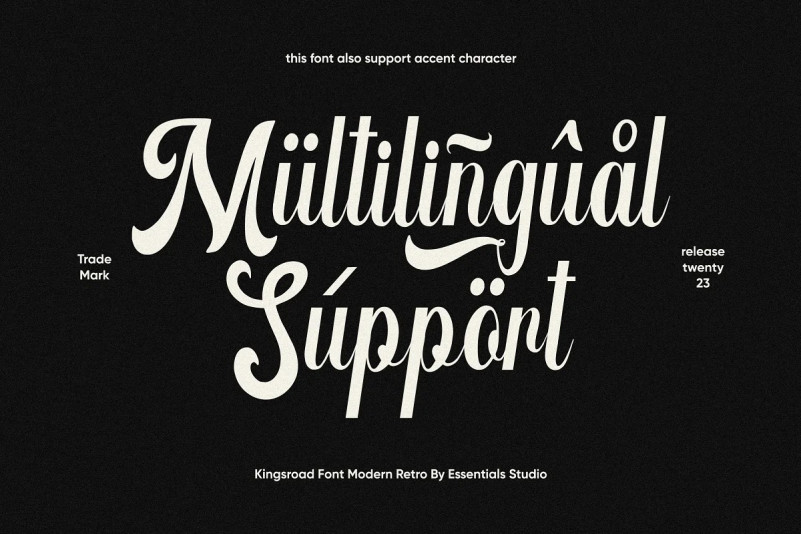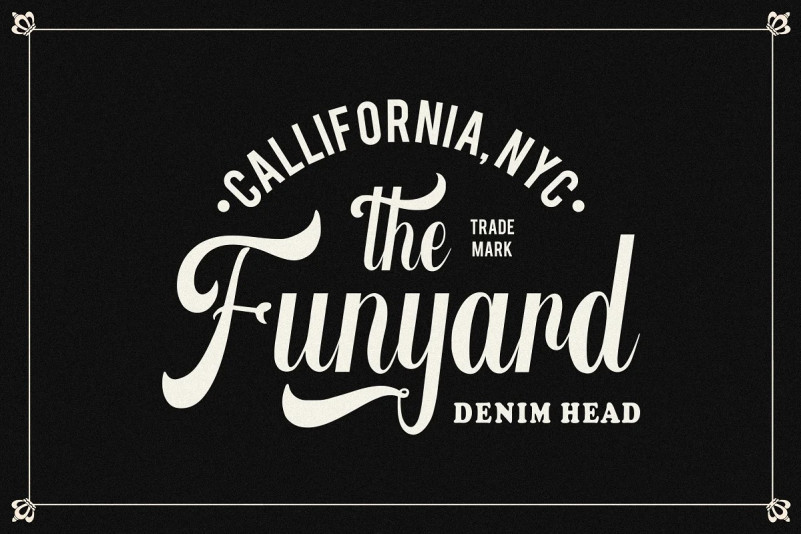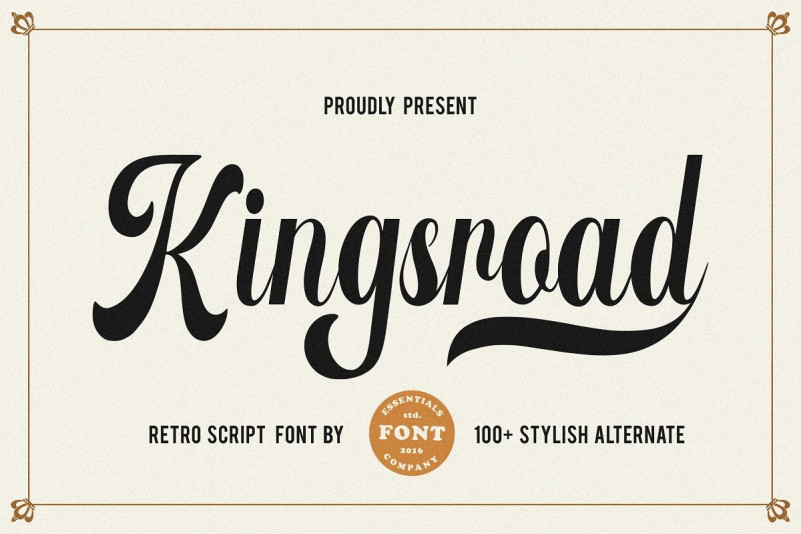
Kingsroad Font
Kingsroad Retro Font is a modern classic Script font with over 100 alternative fonts
Kingsroad is perfect for product packaging, branding projects, magazines, social media, weddings or just used to represent words above the background.